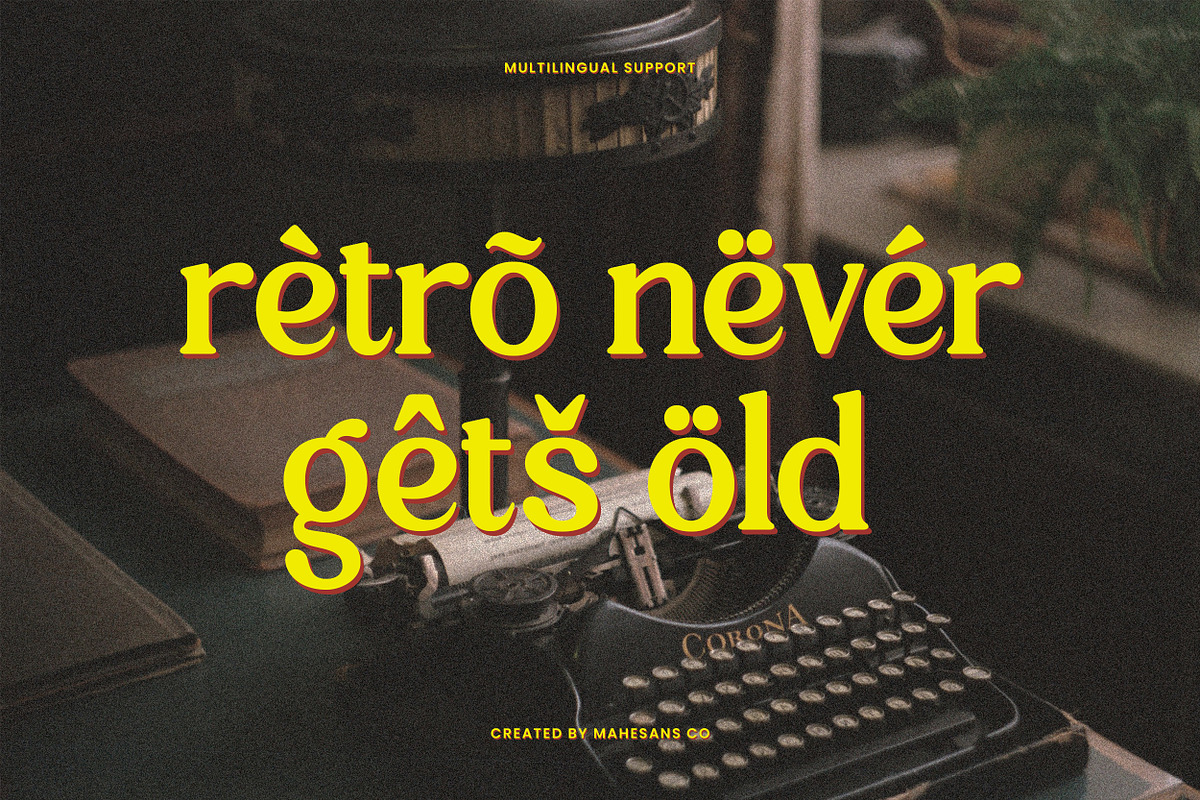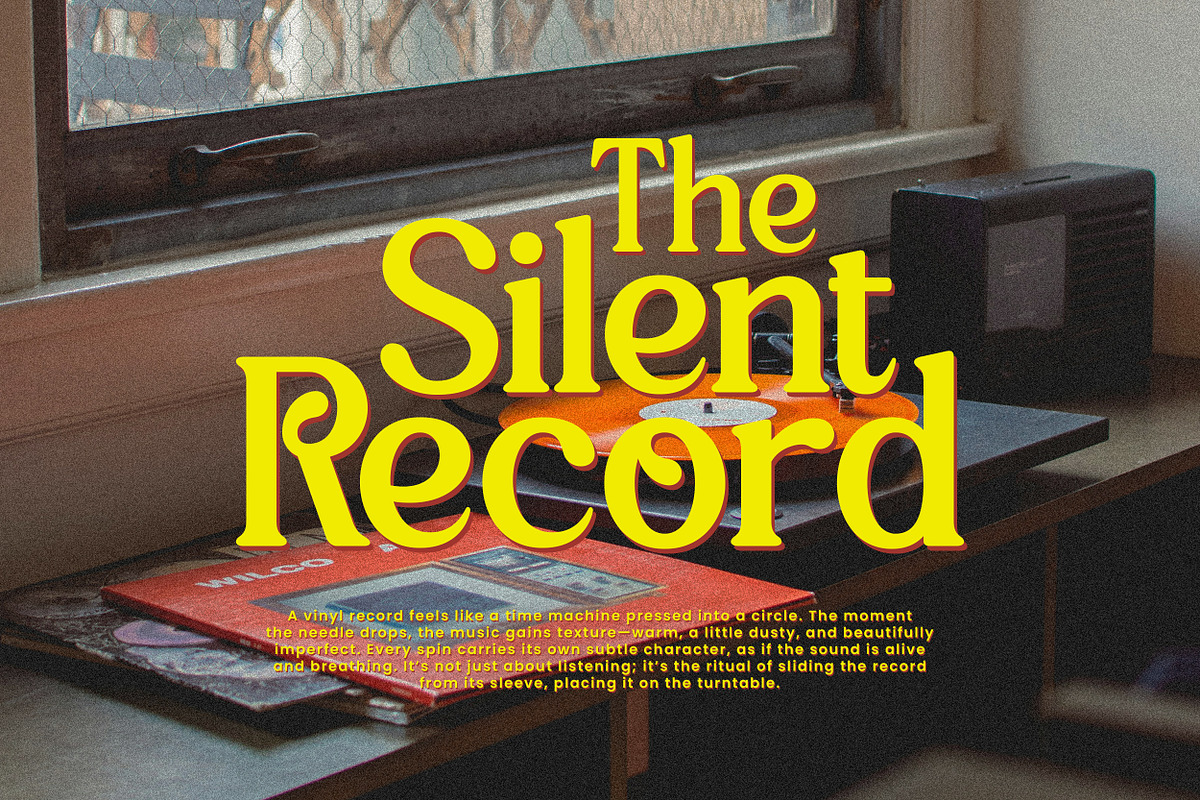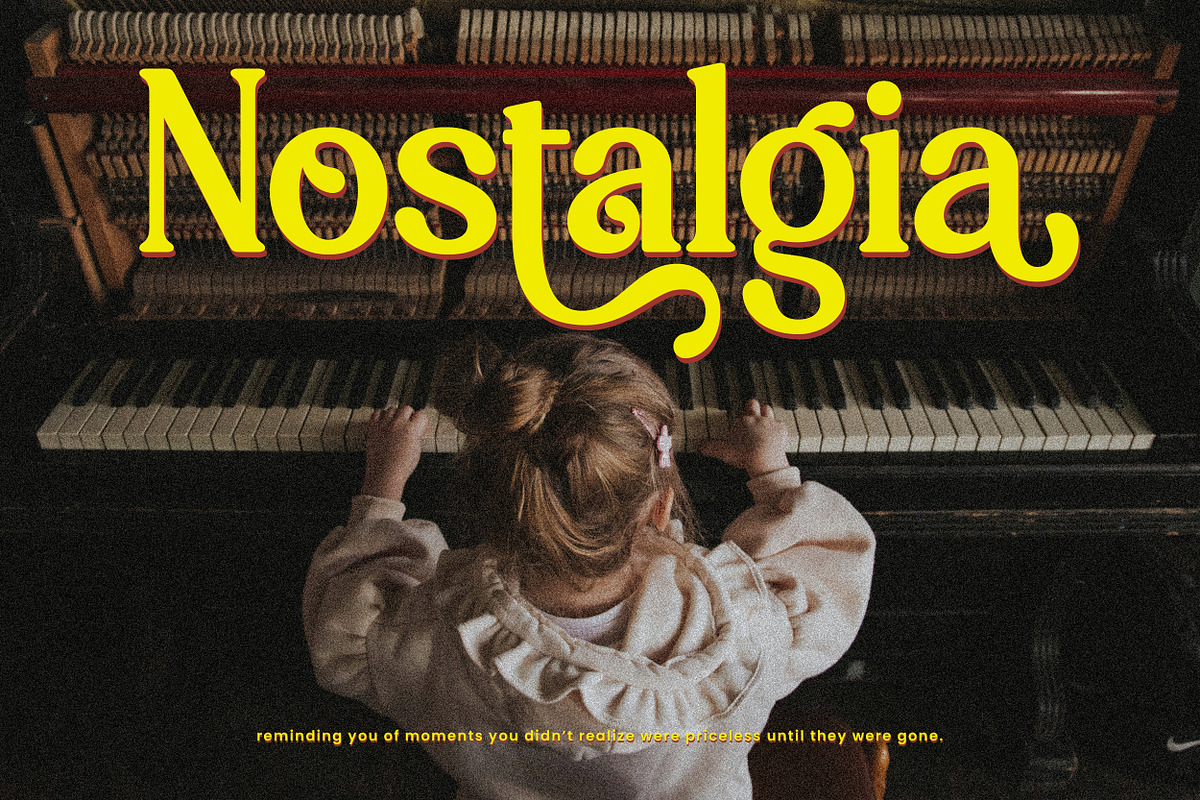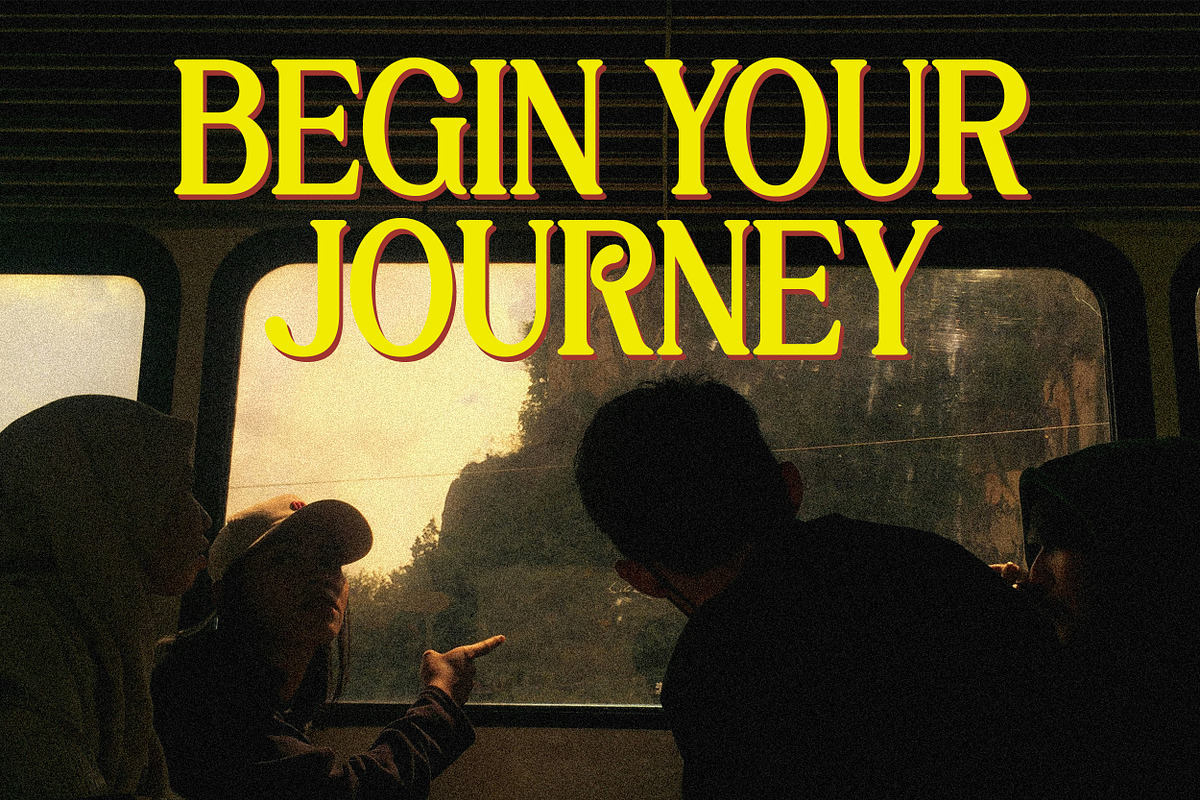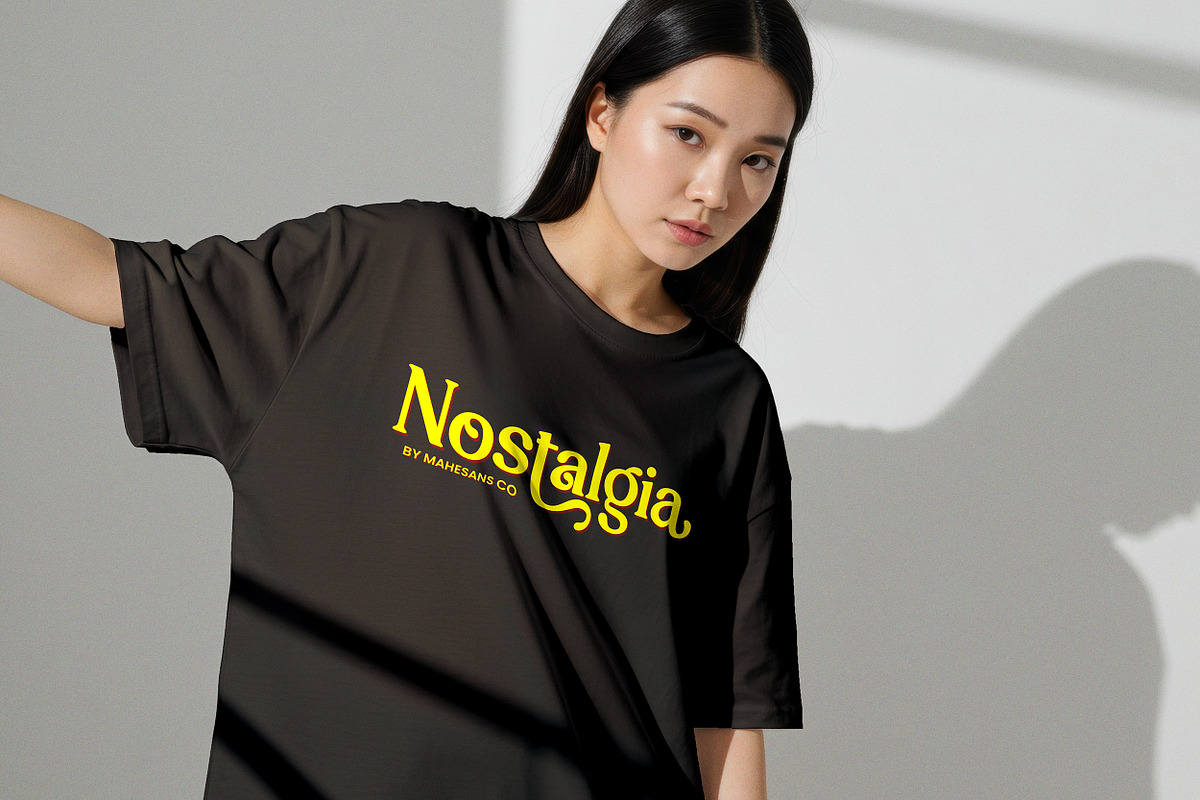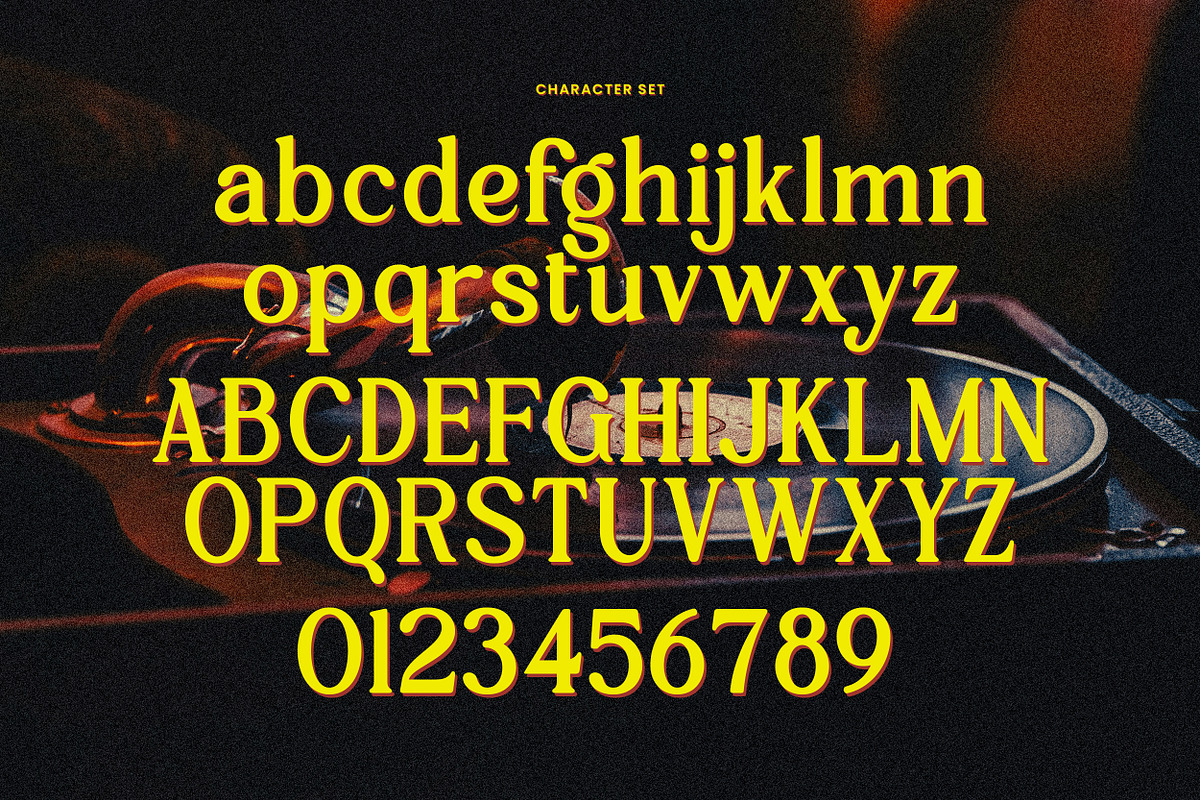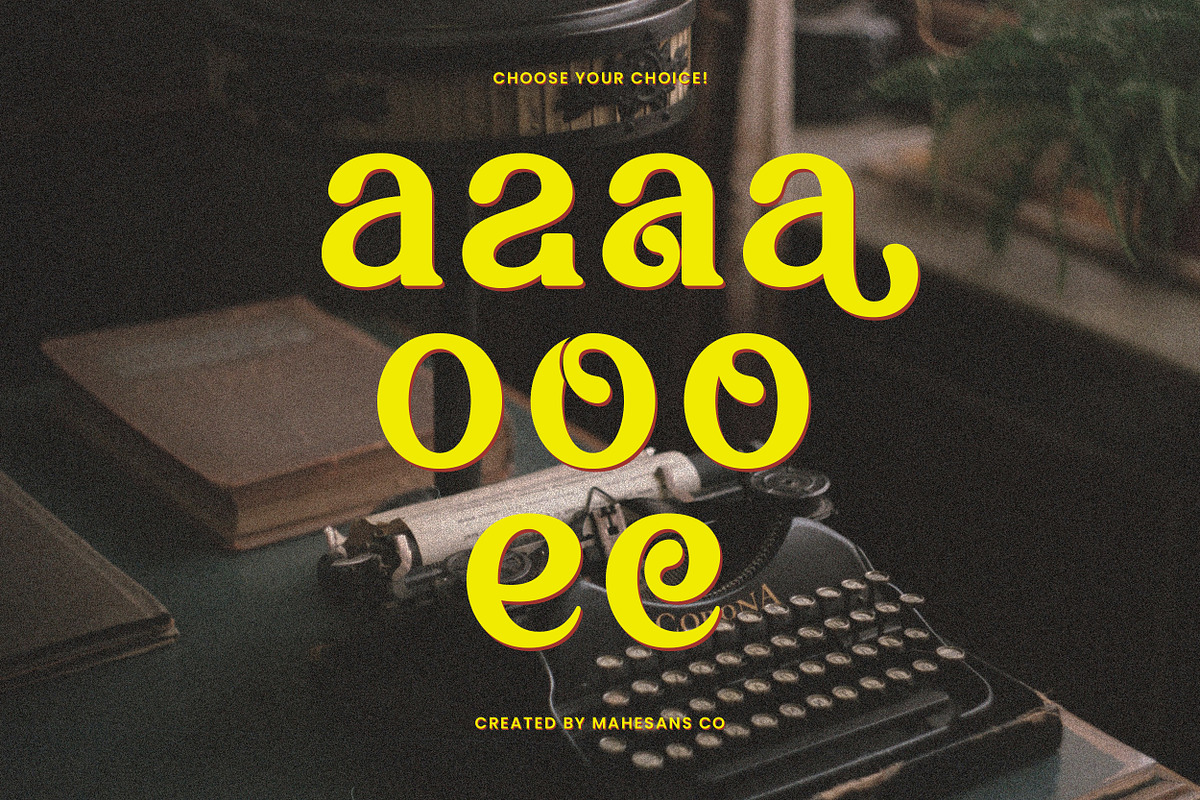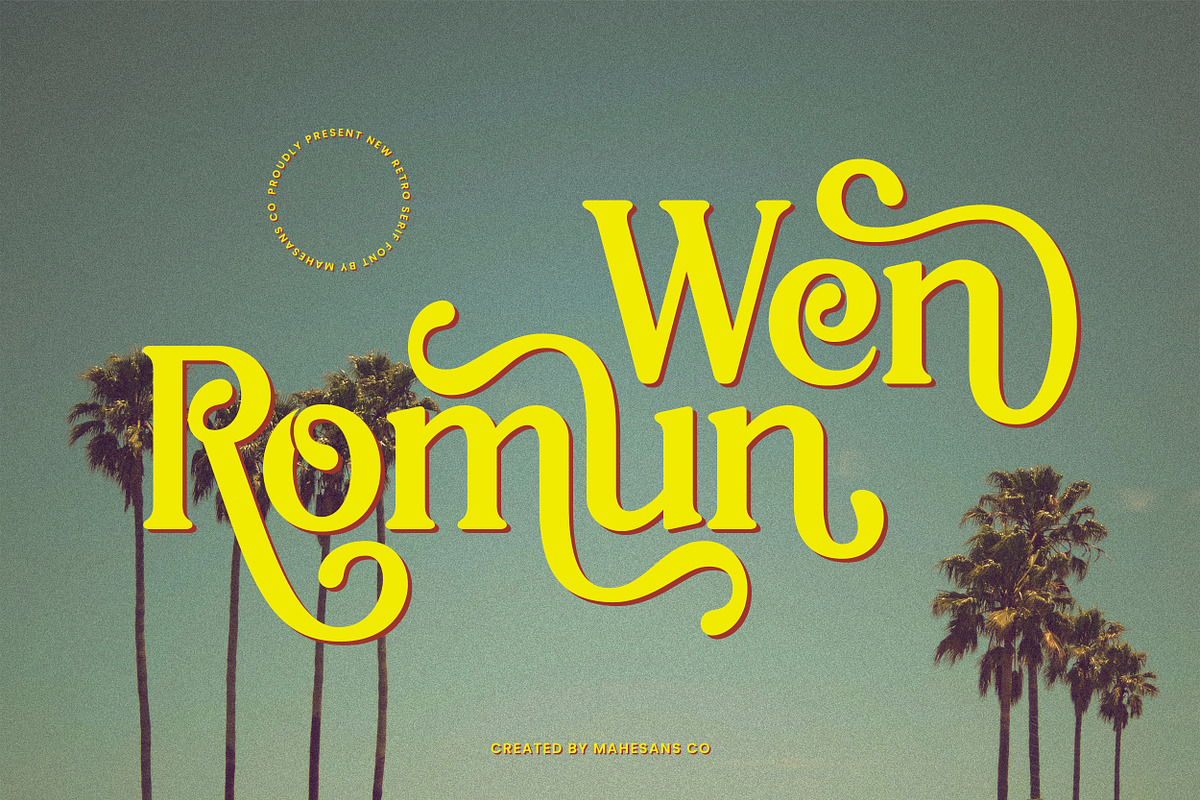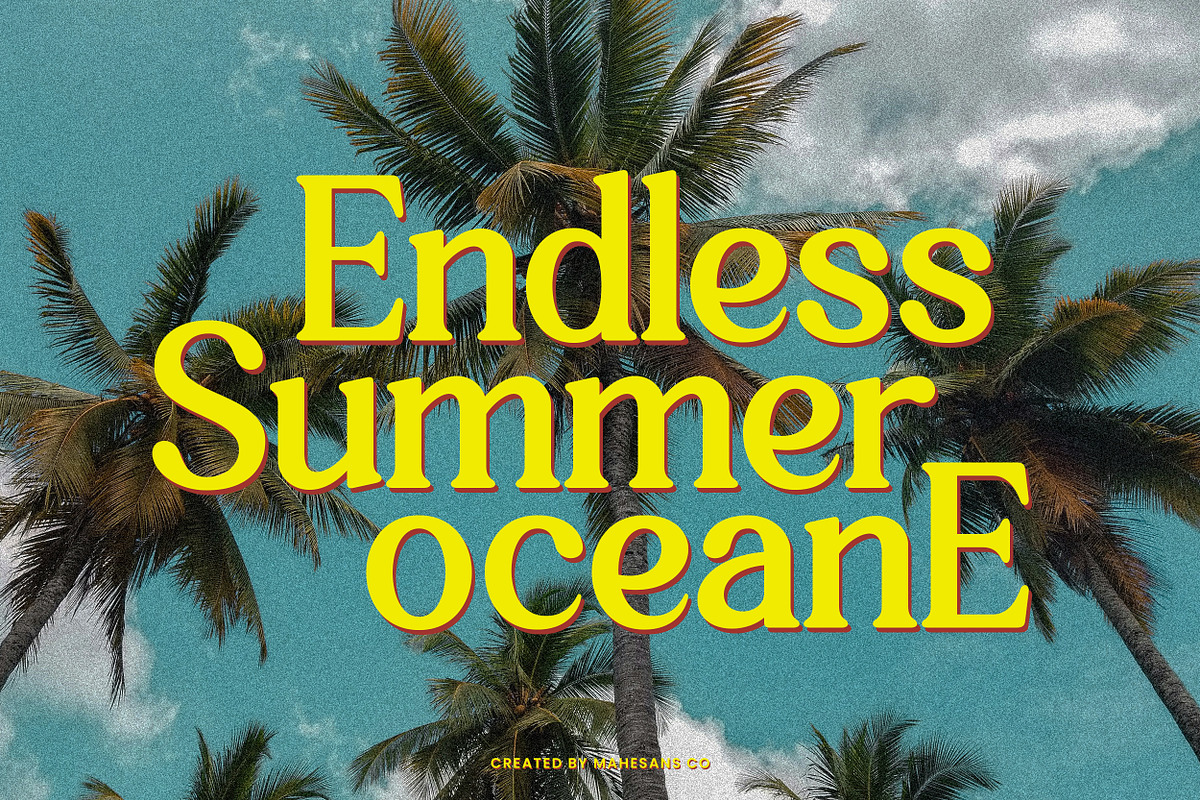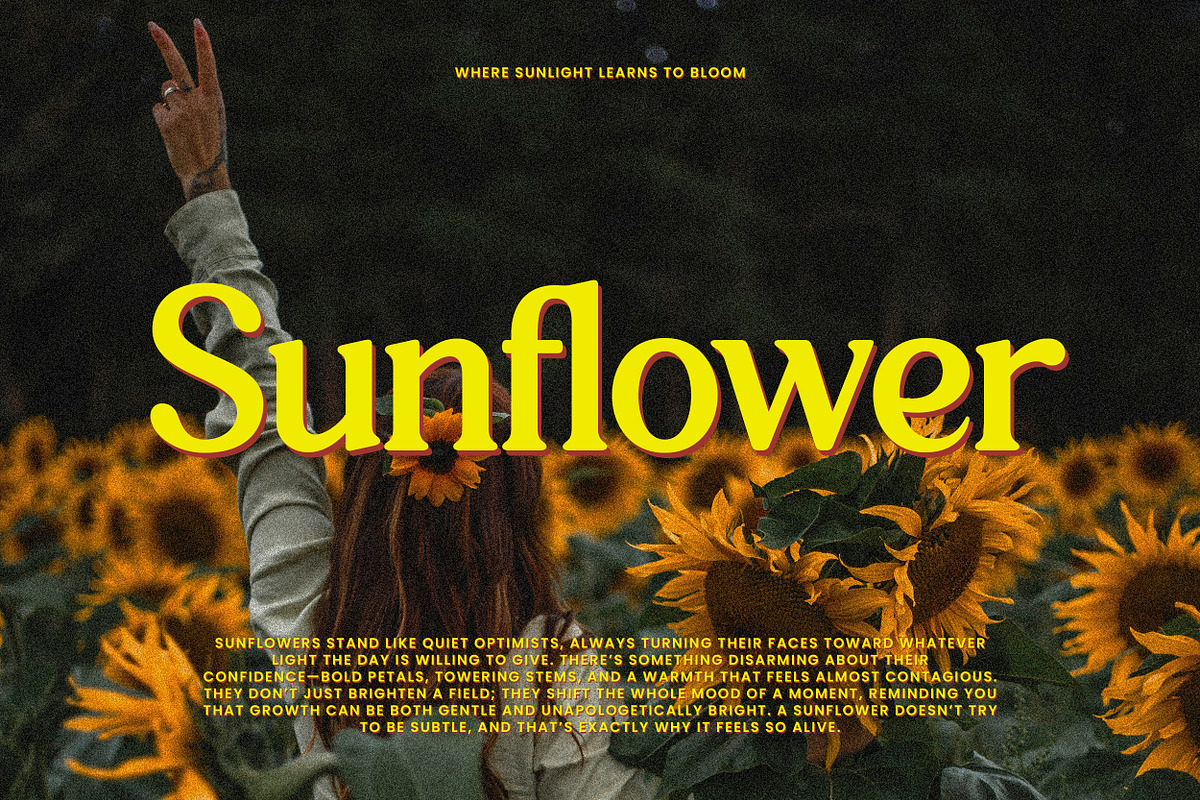
Wen Romun – Nostalgic Display Serif
Wen Romun – Retro Serif Font
Wen Romun is a bold retro serif font inspired by nostalgic moments, vintage prints, and timeless typography. It blends classic letterforms with soft curves and playful swashes, creating a warm and expressive typeface that feels familiar yet confident.
Designed for designers who love character-driven type, Wen Romun works beautifully for branding, posters, packaging, album covers, editorials, logos, and anything that needs a strong vintage presence with a modern touch.
This font shines in display use—headlines, titles, and short statements—where its unique shapes and nostalgic rhythm can truly stand out. Retro isn’t about the past. It’s about style that refuses to age.
- Multilanguage